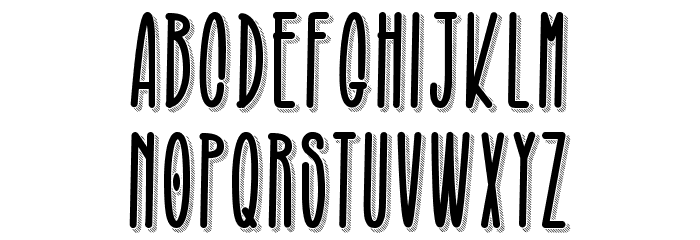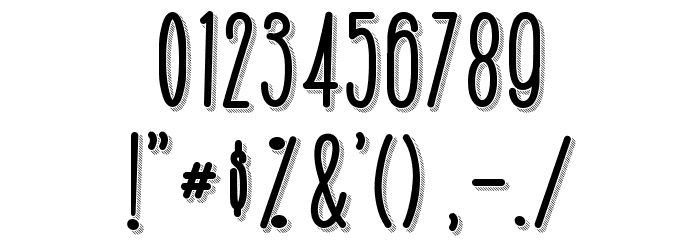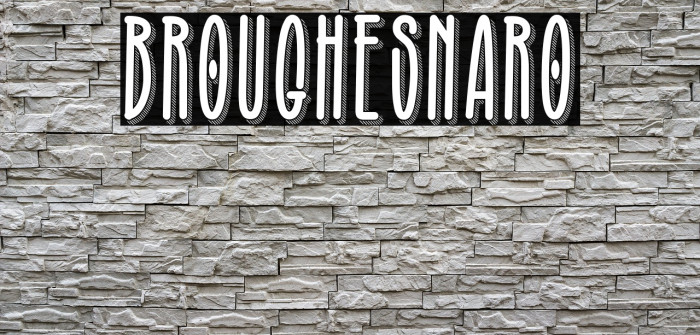
Broughesnaro Font
This font features a unique blend of bold and decorative elements, characterized by its tall, narrow letterforms and distinctive shadowing effect. The uppercase and lowercase letters maintain a consistent style, with elongated strokes and a playful, yet sophisticated appearance. The numbers and special characters follow the same design principles, ensuring a cohesive look across all text elements. The font's shadowing adds depth and dimension, making it stand out in any design. Its overall appearance is both modern and vintage, offering versatility for various creative projects.
A bold, decorative font with tall, narrow letters and distinctive shadowing.
- Proposed Projects: Ideal for posters, logos, branding, and any design requiring a standout, artistic touch.
- Overall Style: Modern, Vintage